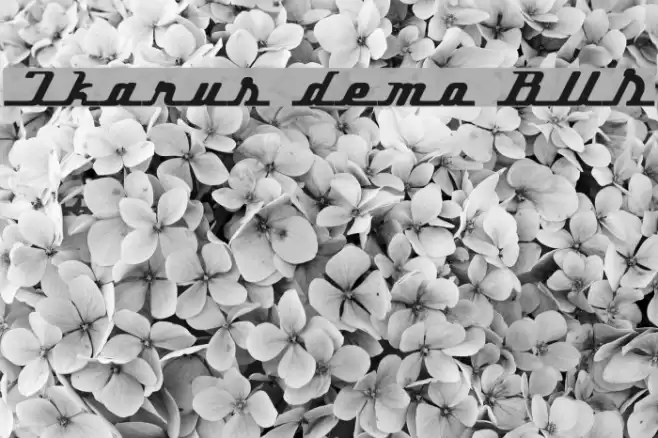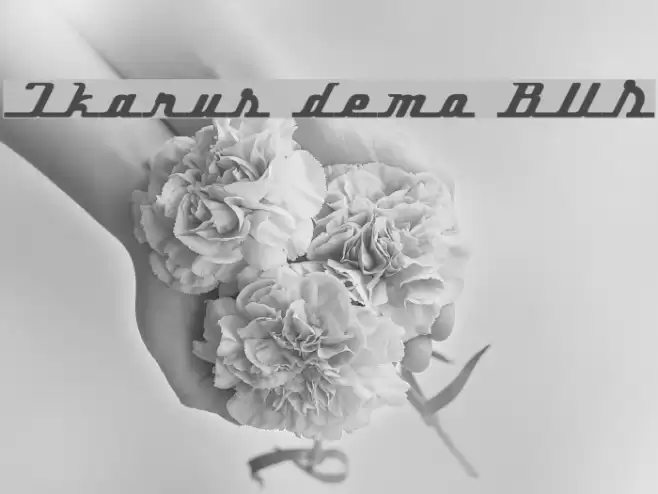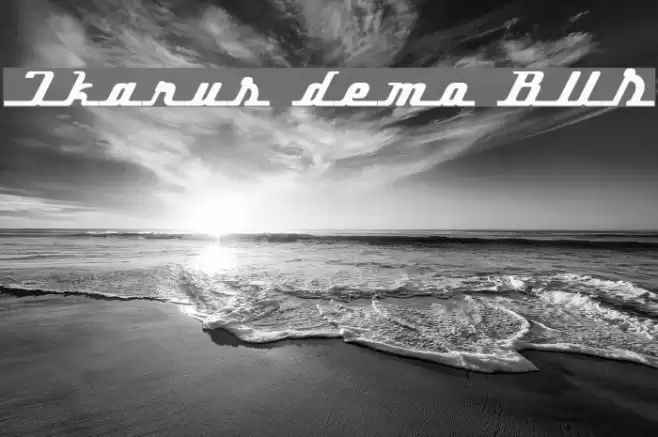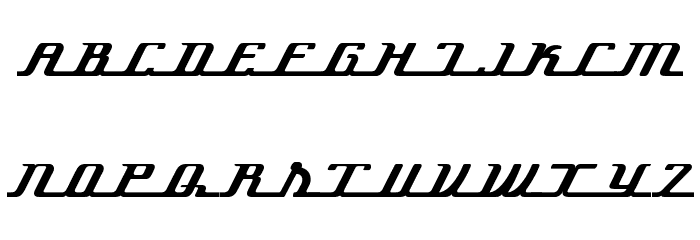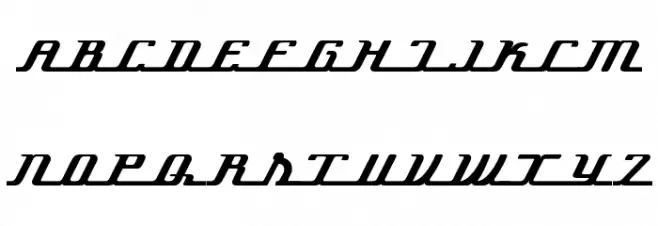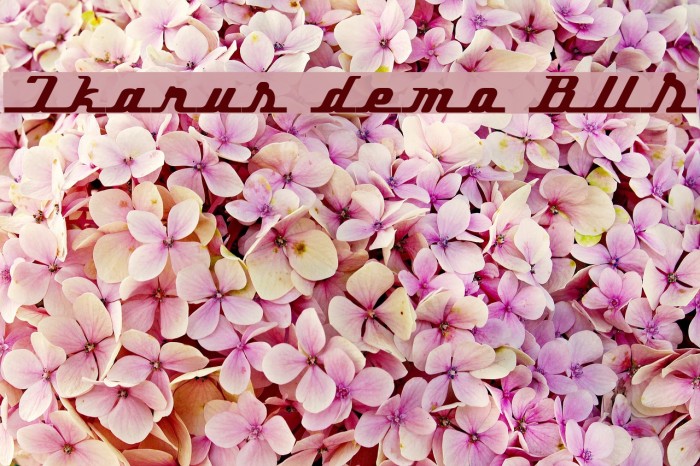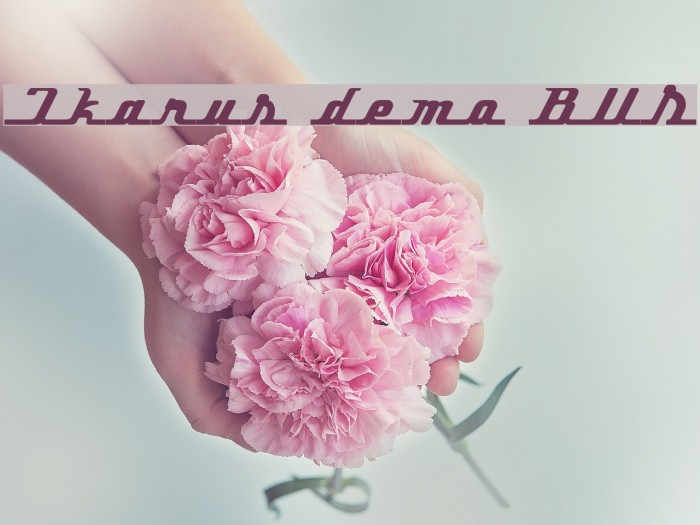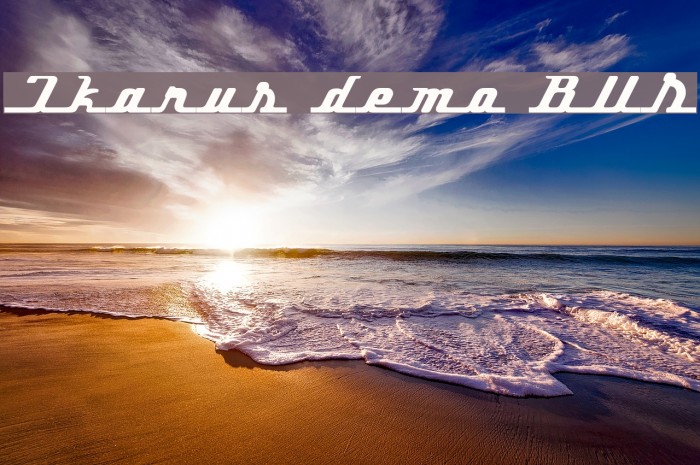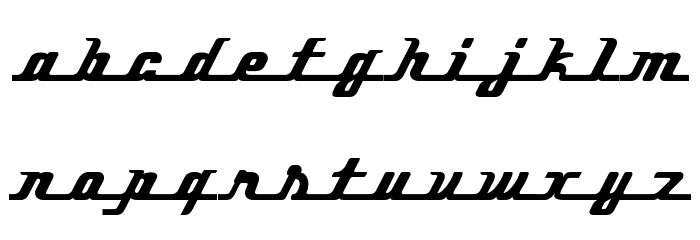
Ikarus demo BUS Font
Ikarus demo BUS Description
This font features a distinctive cursive style with a modern twist. The characters are connected, giving it a flowing, handwritten appearance. The uppercase and lowercase letters maintain a consistent slant, enhancing the script-like quality. The strokes are bold and uniform, providing a strong visual presence. The numerals and special characters are designed to match the overall aesthetic, ensuring cohesion across all elements. This font's unique style makes it suitable for creative and expressive projects.
A bold, cursive font with a modern, connected style from Uncategorized fonts.
- Proposed Projects: Ideal for branding, invitations, greeting cards, and creative logos.
- Use Case: Logos, Headlines, Creative projects